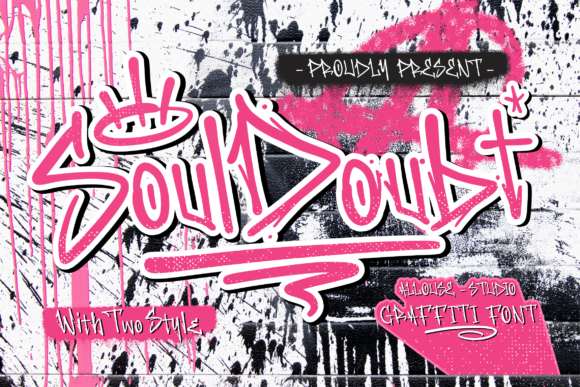
Ignite your designs with the electrifying Soul Doubt font, a captivating display font that exudes playful energy like a mischievous sprite dancing through a fantasy tale. With its lively curves and unexpected flourishes, Soul Doubt adds a touch of whimsy and intrigue to any project it graces.
Immerse yourself in the realm of creativity, where Soul Doubt's playful spirit shines through. Its bouncy strokes and quirky personality make it the perfect choice for adding a touch of charm to your designs. Whether you're crafting eye-catching logos, enchanting invitations, or whimsical social media posts, Soul Doubt will leave an unforgettable impression.
Step into a world of limitless possibilities with Soul Doubt, the font that breathes life into your visual creations. Discover the joy of crafting designs that captivate and delight, leaving your audience spellbound. Unleash your imagination and let Soul Doubt be your guide on this enchanting journey of artistic expression.